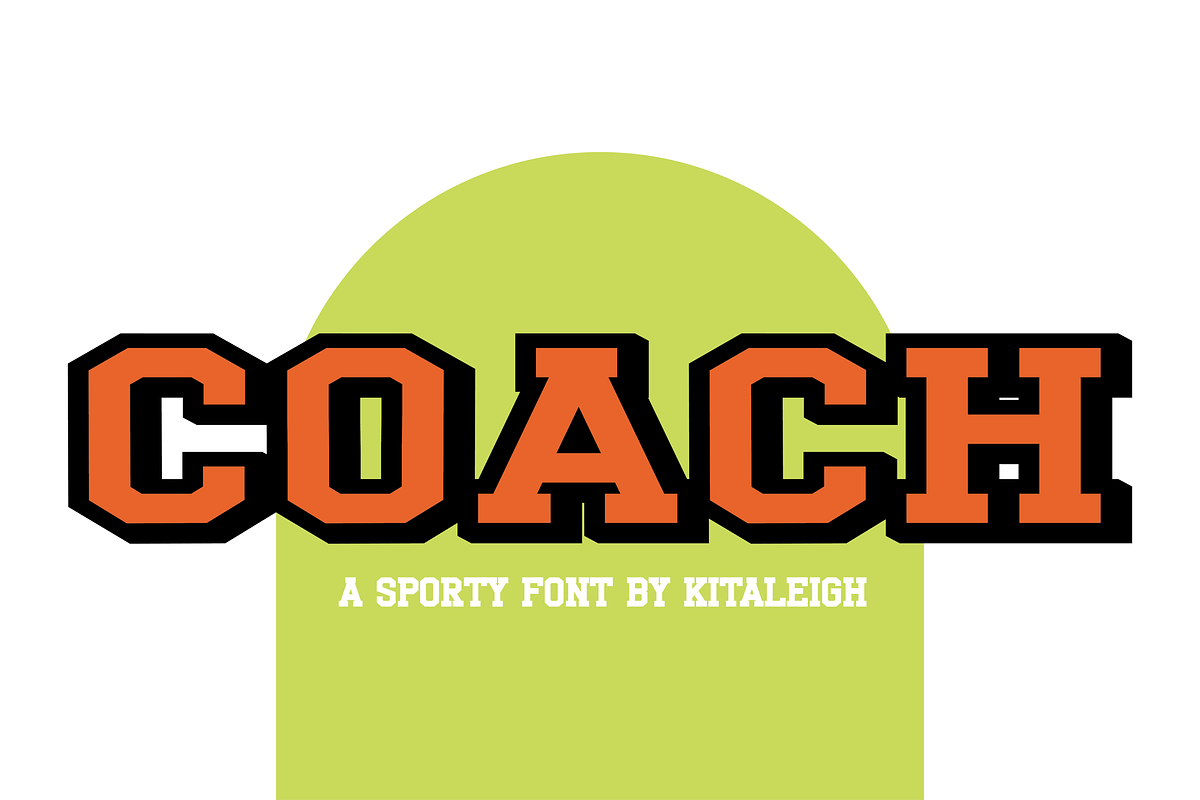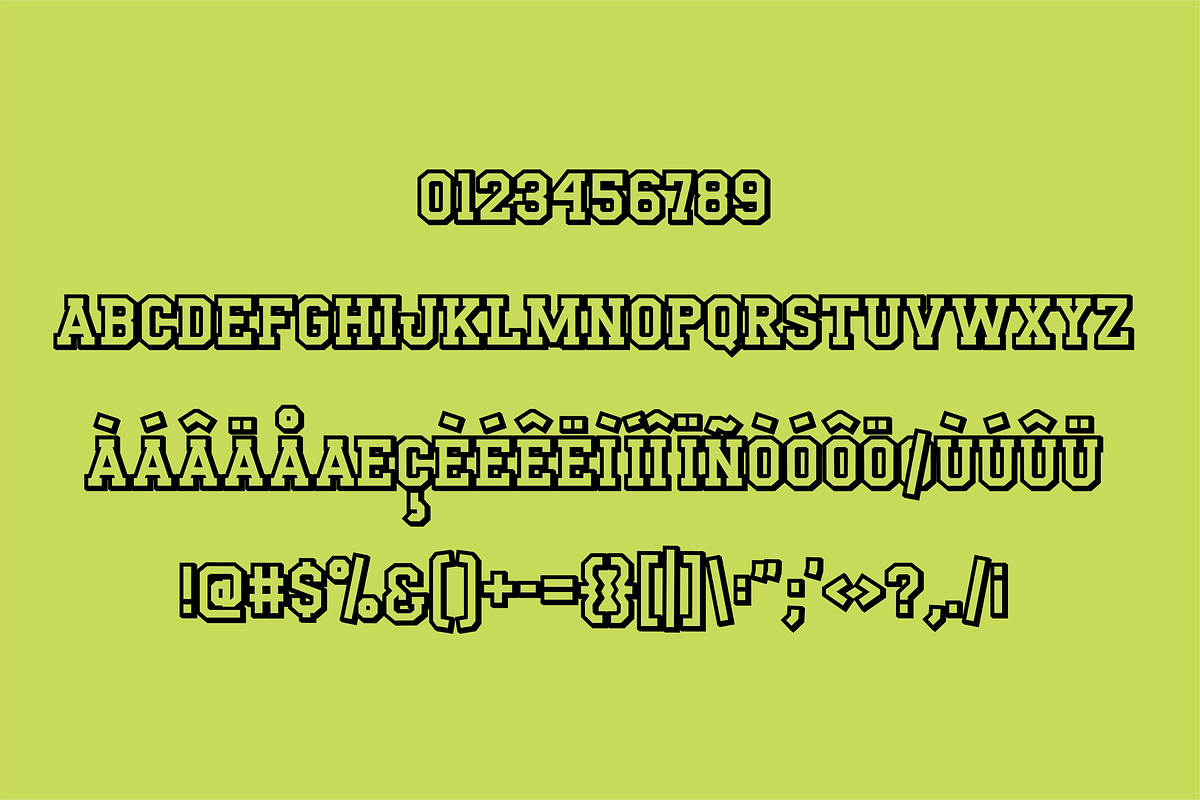
Coach
Coach Sport Font is a modern, bold serif font. It features a thick, block-style letterform and a subtle drop shadow to give your headline a powerful and contemporary look. Perfect for sports design, this font is sure to make an impact.